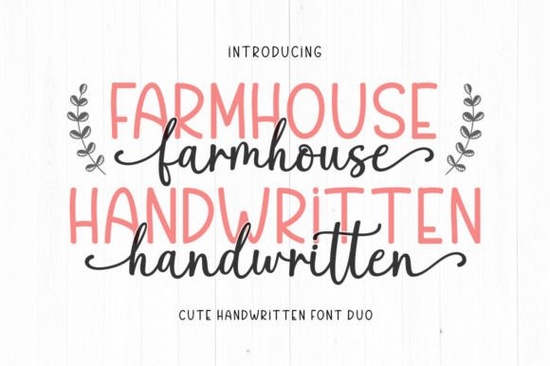
If you’ve been looking for a typeface that feels both rustic and refined, the Farmhouse Handwritten Font might be exactly what you need. This duo pairs a smooth, charming script with a clean sans serif, making it versatile for everything from packaging to Instagram quotes. Whether you run a small business, sell print-on-demand products, or just enjoy lettering projects, a handwritten font like this can bring warmth and personality to your work without looking forced.
What makes a handwritten font duo practical for real projects?
Most of us have struggled with pairing fonts. You pick a script you love, then spend ages trying to find a sans serif that doesn’t clash. A duo solves that by giving you two fonts designed to work together. Farmhouse Handwritten Font includes a cursive style for headings or short phrases, plus a matching clean font for body text. That saves time and keeps your branding consistent. For example, you can use the script for a logo and the sans serif for website copy or product descriptions.
Handwritten fonts also add a human touch. In an era of sterile templates, a slightly irregular script feels approachable. This is especially useful for social media posts, where you want followers to feel a connection rather than just scroll past. The Farmhouse Handwritten Font has a smooth flow that doesn’t look messy, so it works for professional branding too.
How can I use Farmhouse Handwritten Font in my designs?
Let’s break it down by real use cases:
- Branding and logos – The script font gives a handcrafted feel, ideal for bakeries, home décor brands, or wedding planners. Pair it with the sans serif for taglines.
- Packaging – From soap labels to coffee bags, a handwritten look suggests artisanal quality. The duo helps you fit more text without losing readability.
- Social media graphics – Instagram quotes, Pinterest pins, or Facebook covers. The script grabs attention, while the sans serif keeps longer captions clear.
- Print-on-demand products – T-shirts, mugs, tote bags. Customers often prefer items that look hand-lettered. Use the duo to create phrases or monograms.
- Blog headers and overlays – If you run a lifestyle or DIY blog, this font works for titles and photo overlays. It’s legible even at smaller sizes.
Why choose a script duo instead of a single font?
Sometimes a single script looks great on its own but fails when you need to add supporting text. With a duo, you already have a harmonious pair. That’s especially helpful for packaging where you need a product name in script and ingredients in a readable sans serif. It’s also great for wedding invitations – use the script for the couple’s names and the clean font for location details.
What should I look for in a handwritten font for commercial projects?